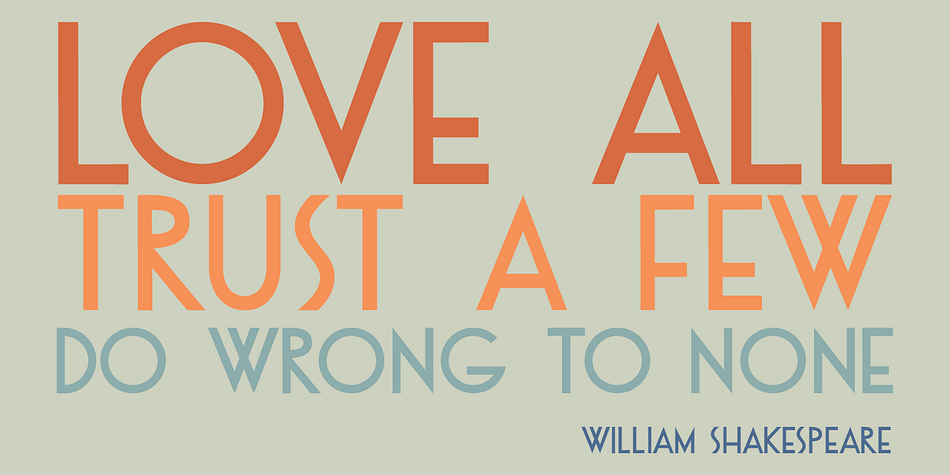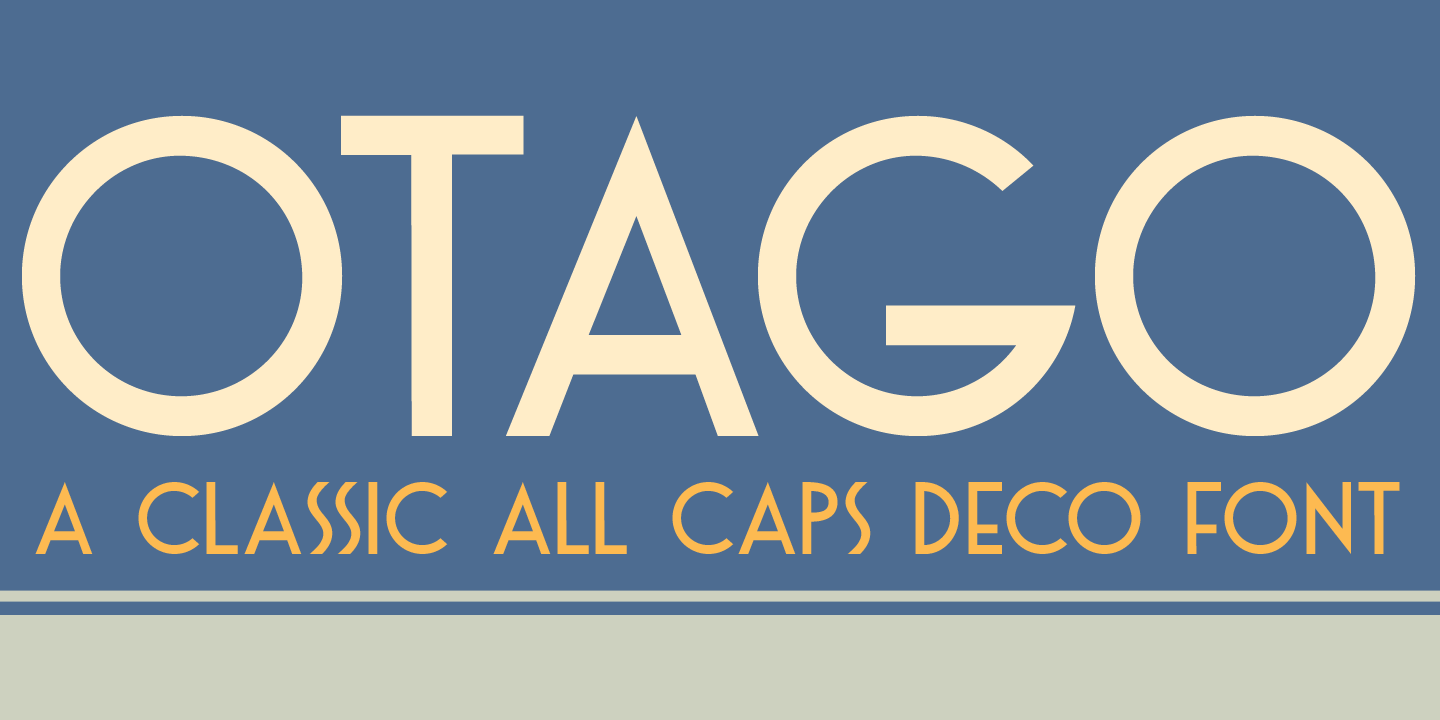
Otago is a display sans and art deco font family. This typeface has two styles and was published by Hanoded.
Otago is a classic all caps Art Deco font. Clean, crisp and very, very legible. I took my inspiration for this font from a 1920’s postcard.
Otago comes with a bagful of diacritics.